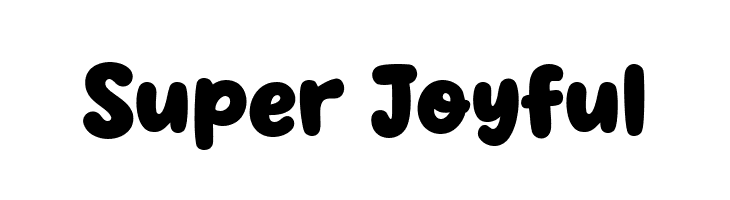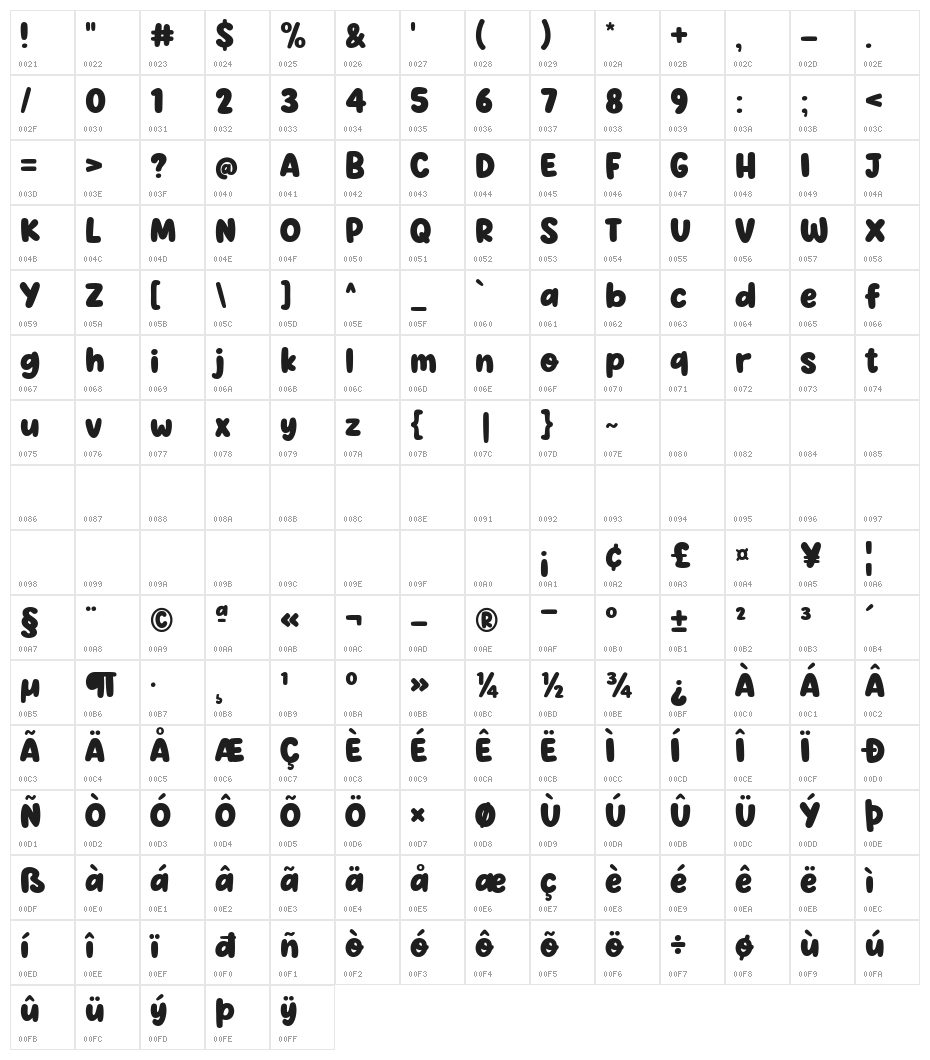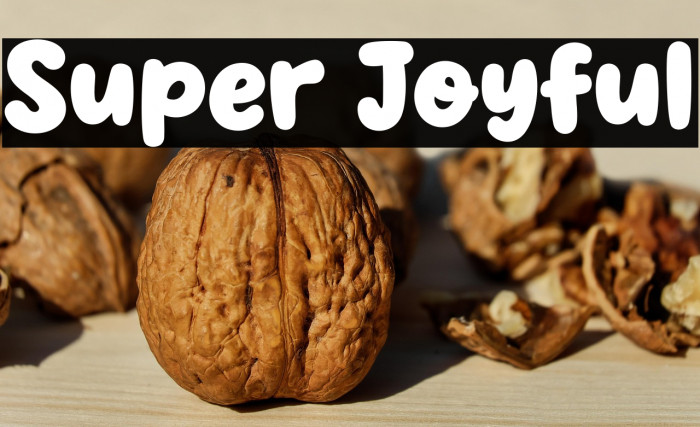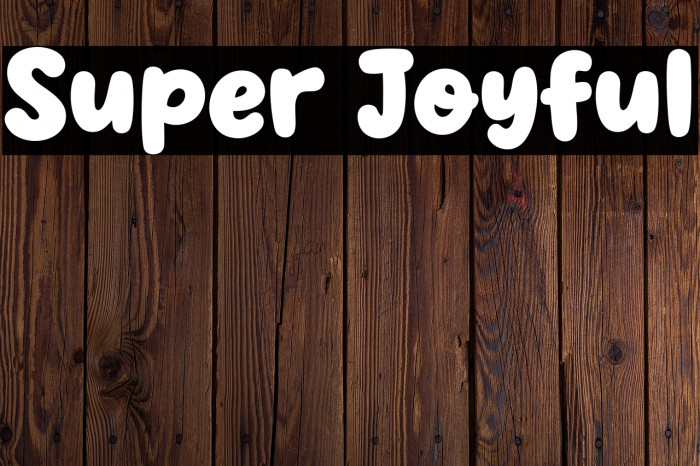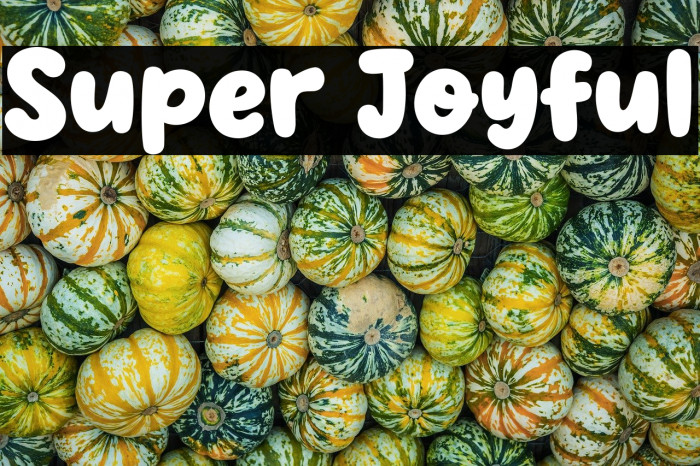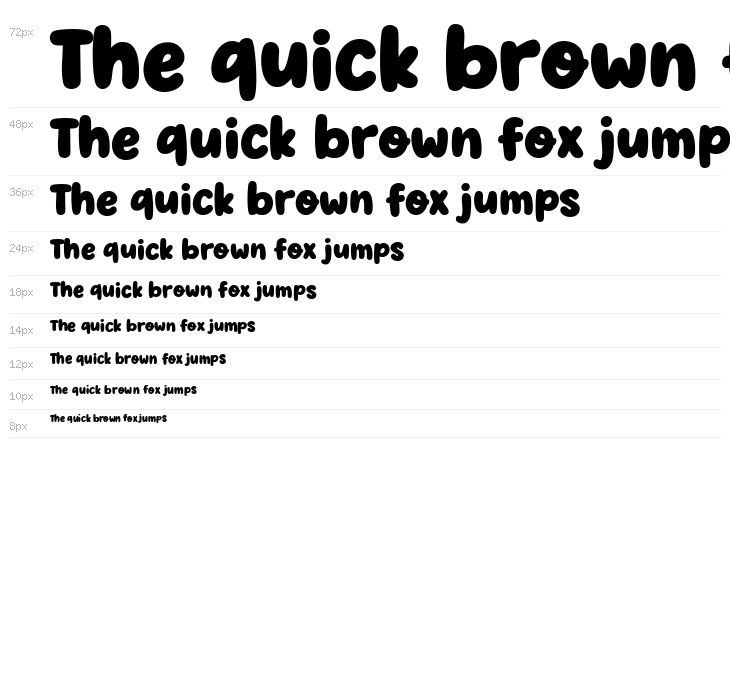
Super Joyful Font
Super Joyful Description
A playful, bold font with rounded edges and a bubbly appearance, conveying a sense of fun and joy.
| Overall Style | Playful |
| Use Case | Headlines, Logos |
| Proposed Projects | Children's books, party invitations, playful branding. |